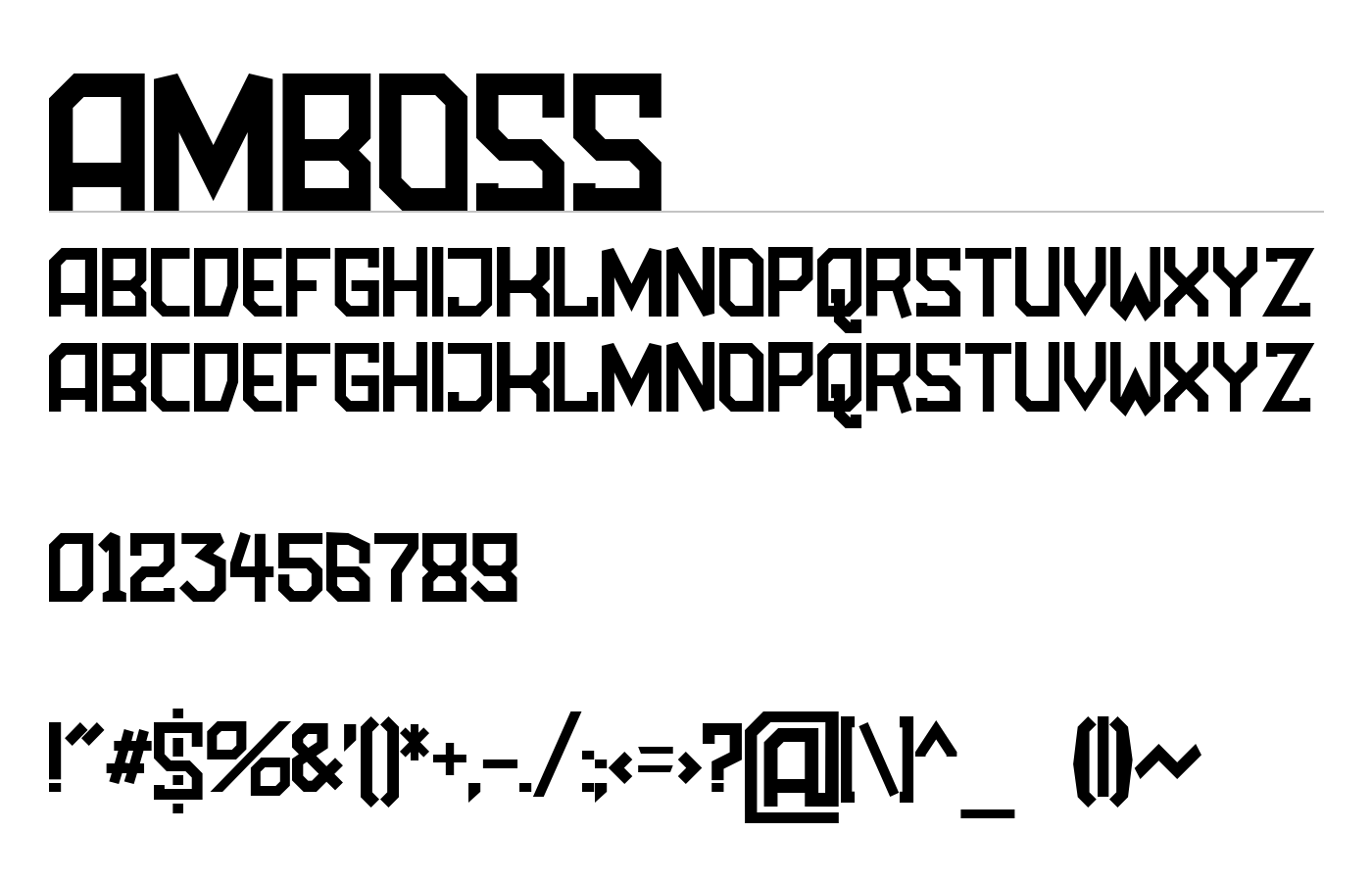
Amboss is a bold, condensed sans serif font with a futuristic, geometric style characterized by sharp angles and straight edges. Its high contrast strokes and all-caps design create a strong, technical feel, making it ideal for modern branding, tech projects, and eye-catching headlines where a distinctive, industrial look is desired.
Amboss Font
About Amboss Font